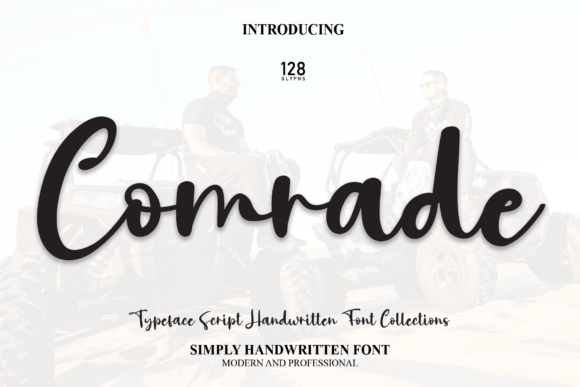
Introducing Comrade Font - The Playful and Amiable Font That Will Make Your Designs Pop!
In a world of monotonous fonts, Comrade Font stands out as a breath of fresh air. Its playful and stylish demeanor, coupled with its youthful spirit, makes it the perfect choice for designers looking to add a touch of whimsy and charm to their projects.
Comrade Font's versatility is unparalleled. Whether you're working on professional-looking projects such as branding designs, labels, websites, or business cards, or more casual designs like packaging, posters, flyers, quotes, social media posts, invitations, or special occasions cards, Comrade Font effortlessly adapts to your vision.
Step into a world of endless possibilities with Comrade Font. Dive into a sea of creativity as you witness your designs come alive with a font that speaks to your heart. Feel the joy of crafting unique and memorable designs that leave a lasting impression on your audience.
With Comrade Font, you'll never have to settle for ordinary again. Embrace the extraordinary and watch as your designs transform into masterpieces that captivate and inspire.